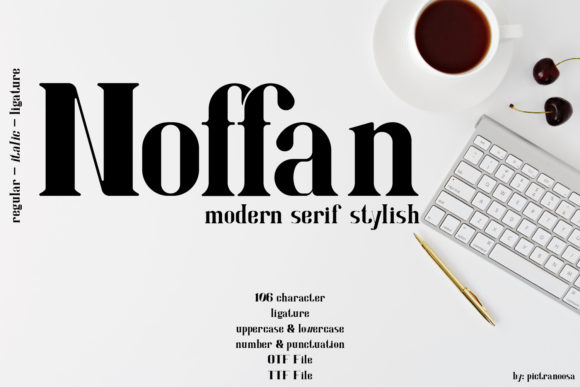
Unleash the power of Noffan, the minimalist serif font that will transform your designs with its bold and captivating curves!
Immerse yourself in the world of typography, where Noffan reigns supreme as the master of the letter C. Its thick strokes and clean lines dance elegantly together, creating a visual masterpiece that will leave a lasting impression on your audience.
With Noffan, you'll never settle for ordinary fonts again. Its versatility knows no bounds, making it the perfect companion for a myriad of creative projects. Picture your words taking center stage, adorned with the sophistication of Noffan's serif charm.
Unleash your imagination and witness how Noffan breathes life into your designs, effortlessly elevating them from the mundane to the extraordinary. Let its bold presence captivate your audience, leaving them spellbound by the beauty of your creations.